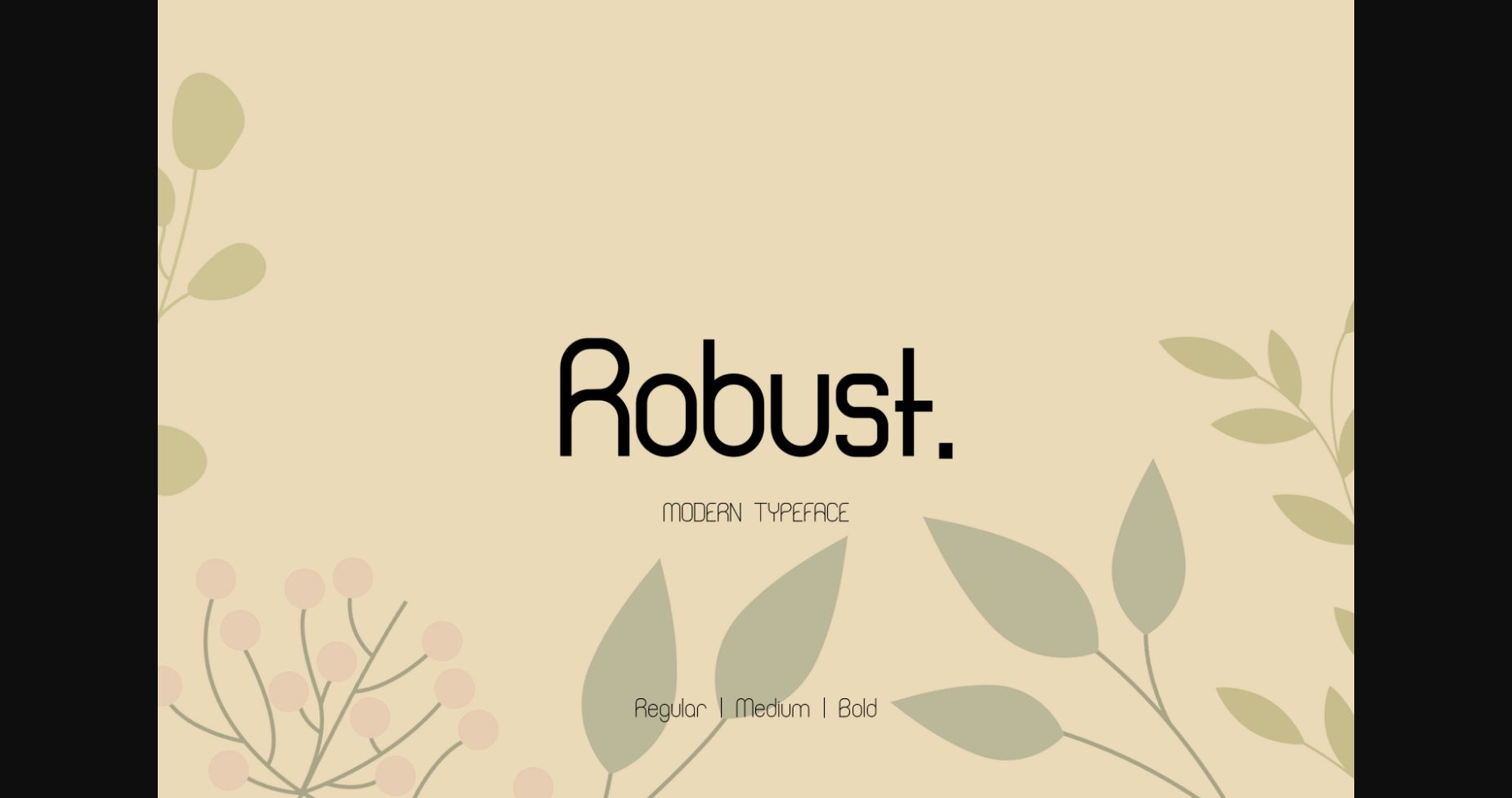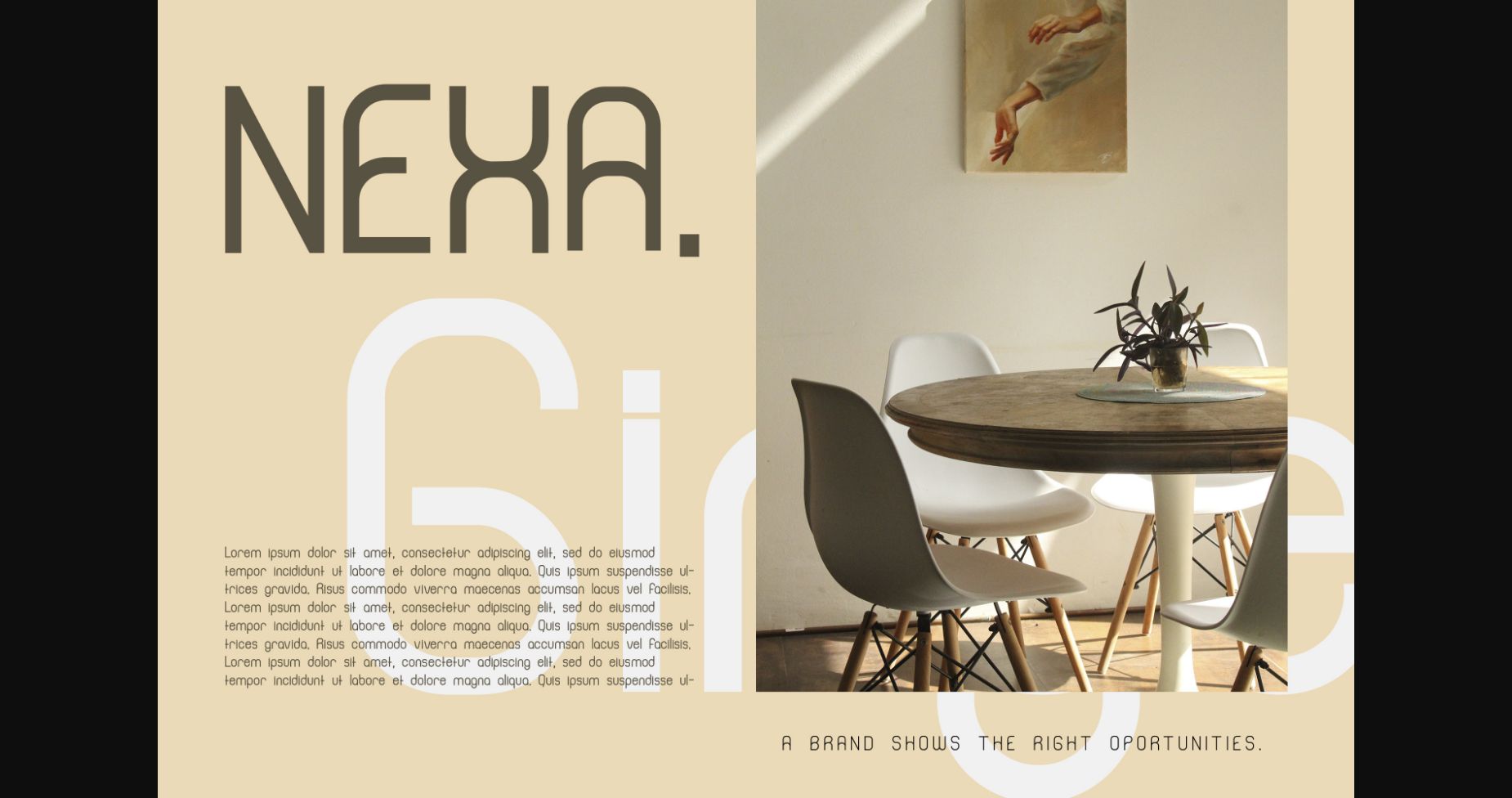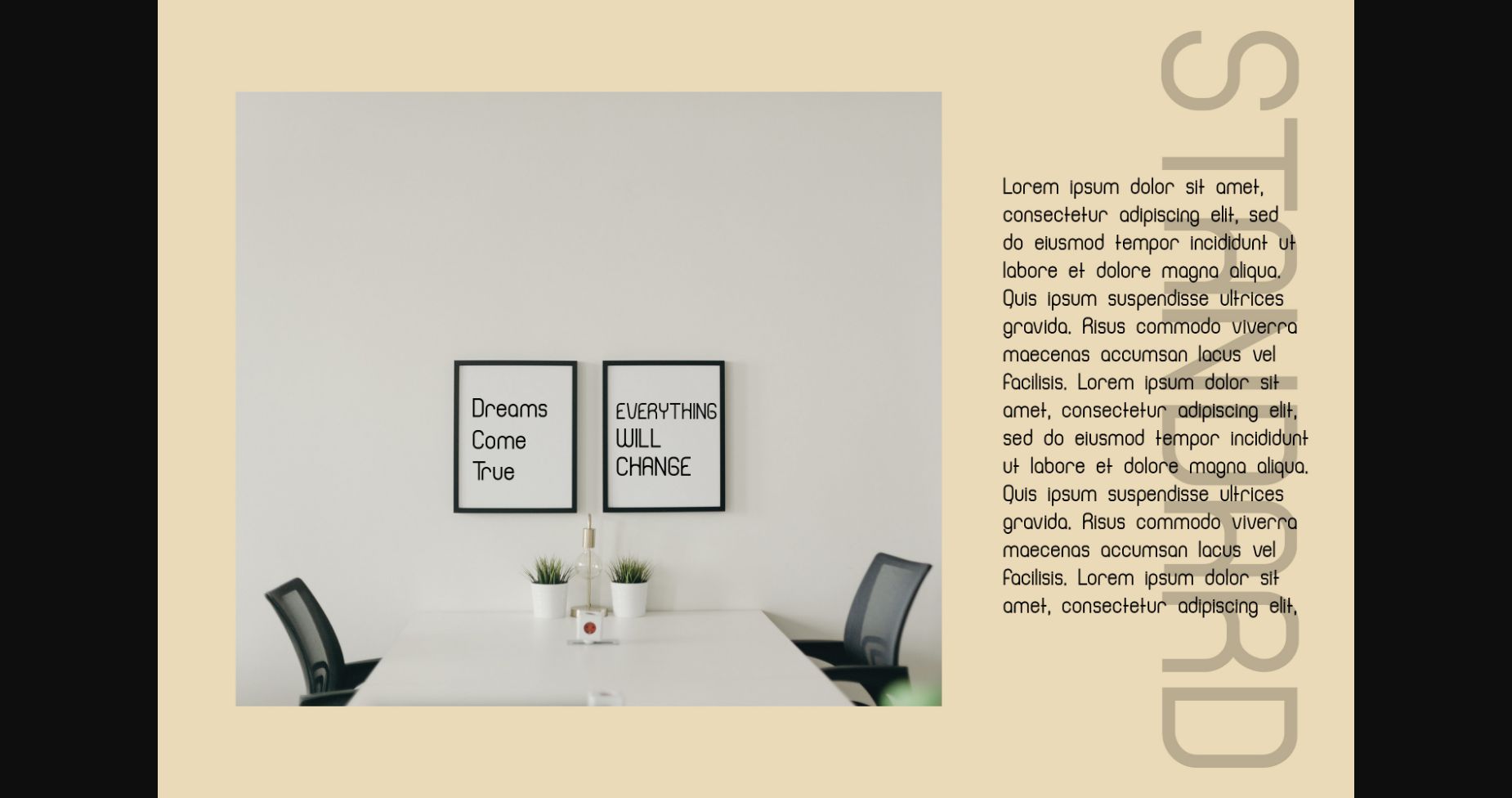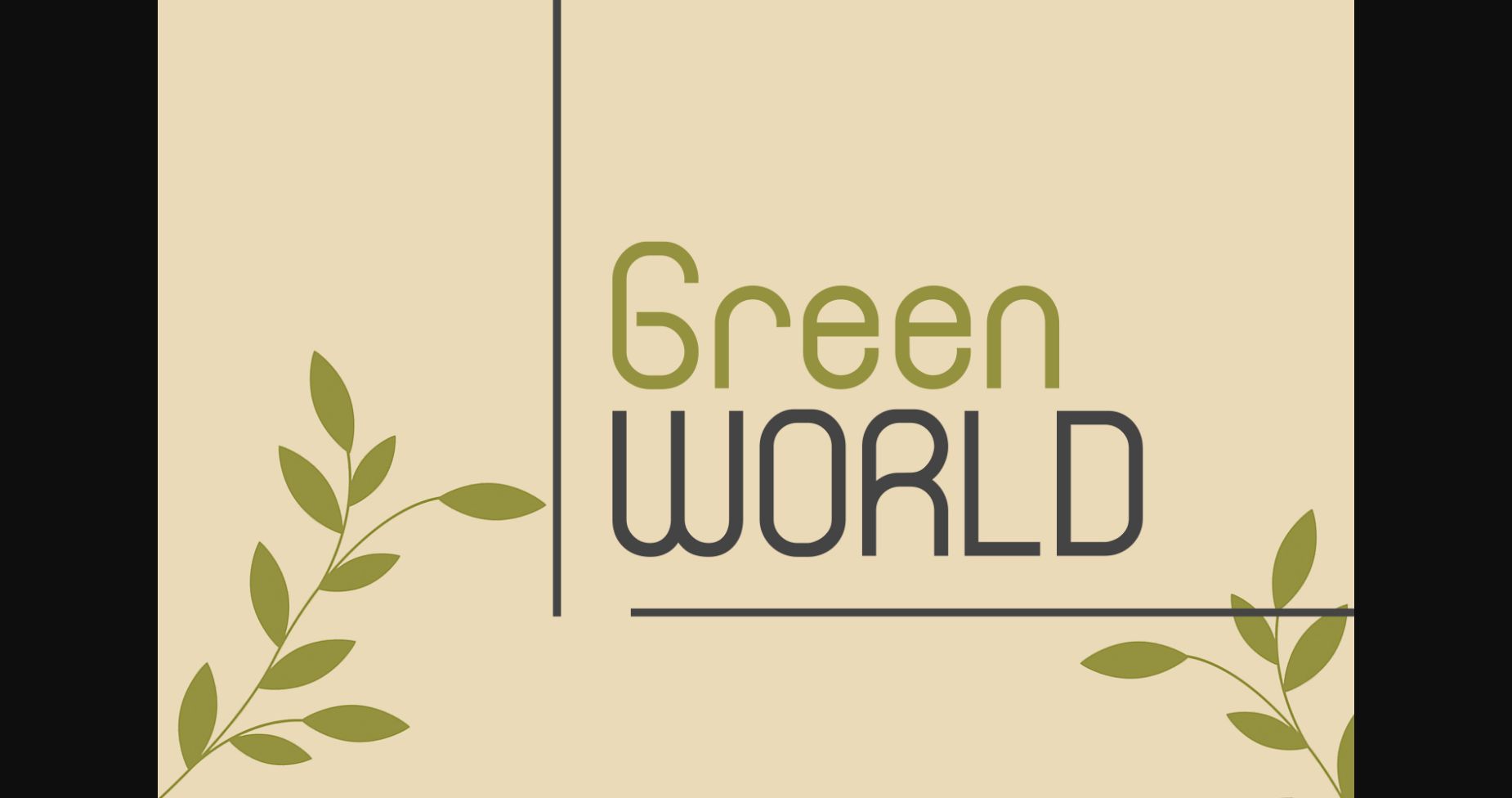
Robust Font
About Robust Font
Robust is a unique and modern sans serif font. It has superbly neat and minimalistic letters that can take each of your creative projects to the highest levels!